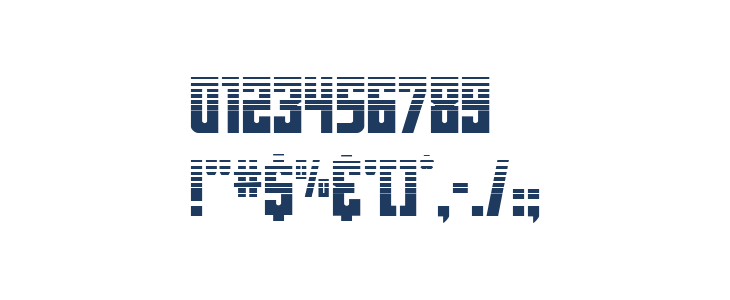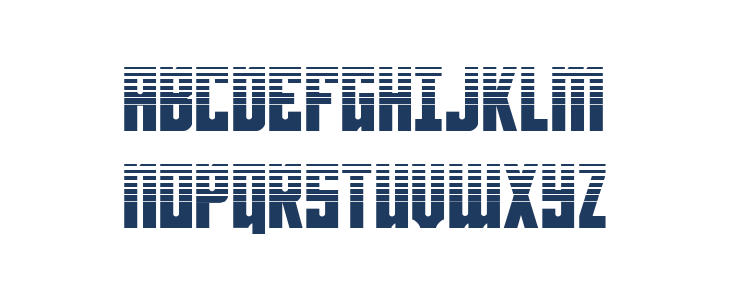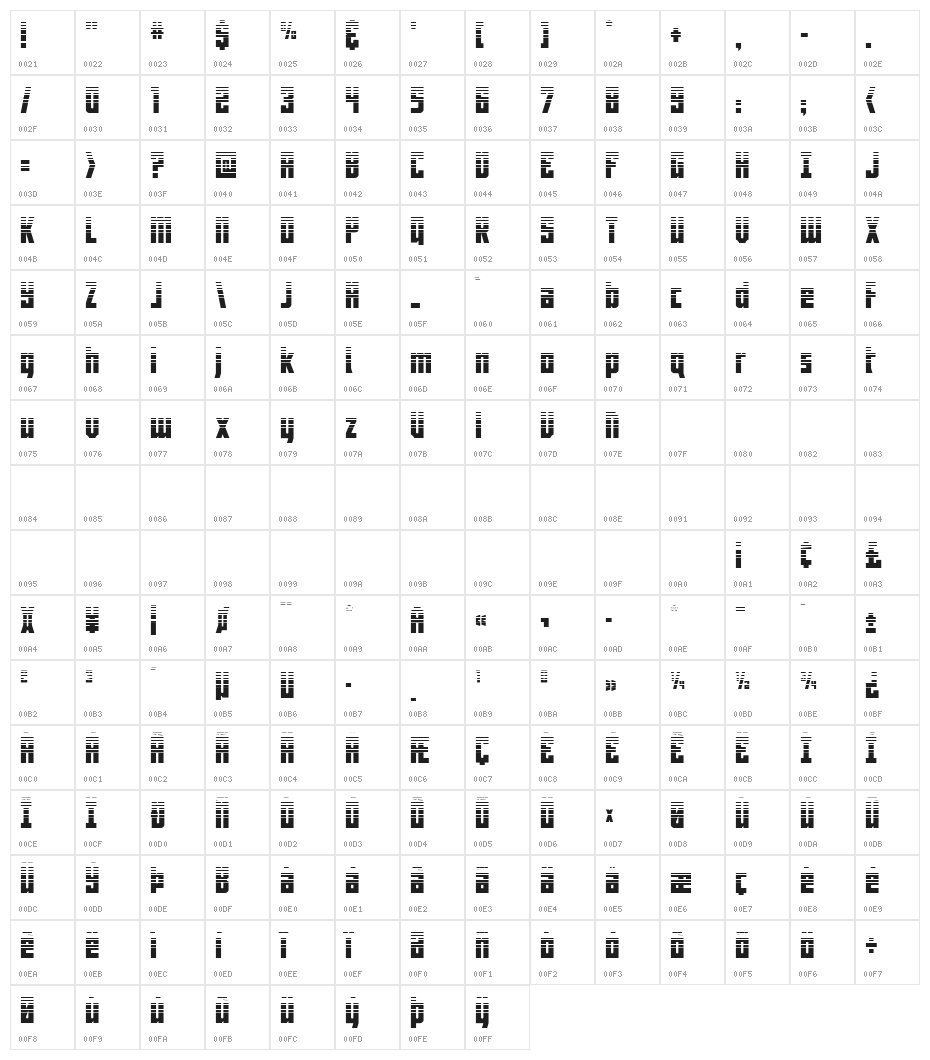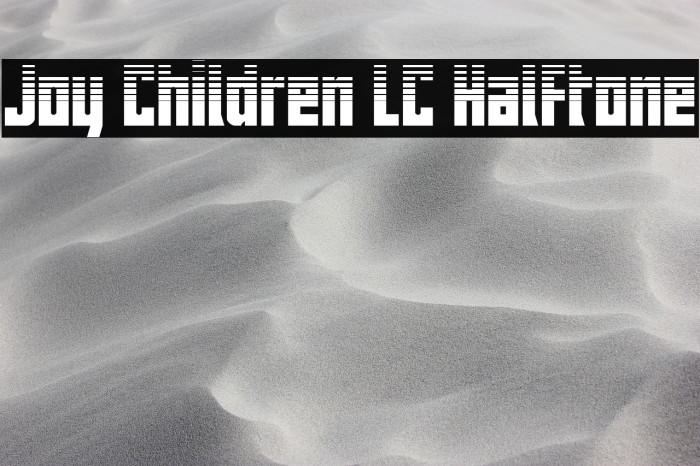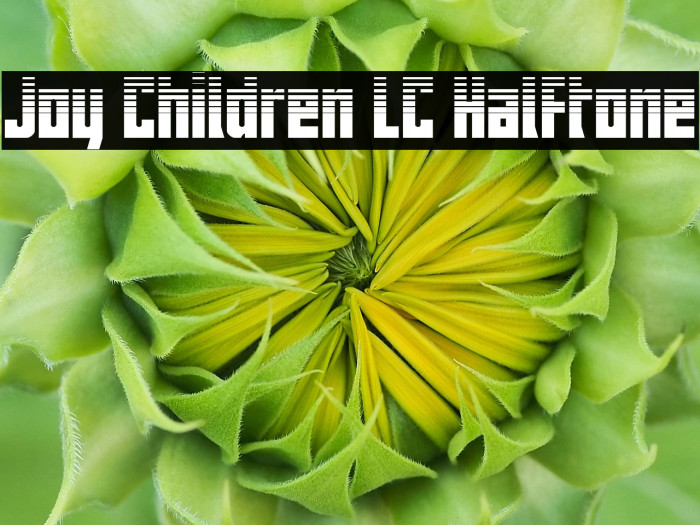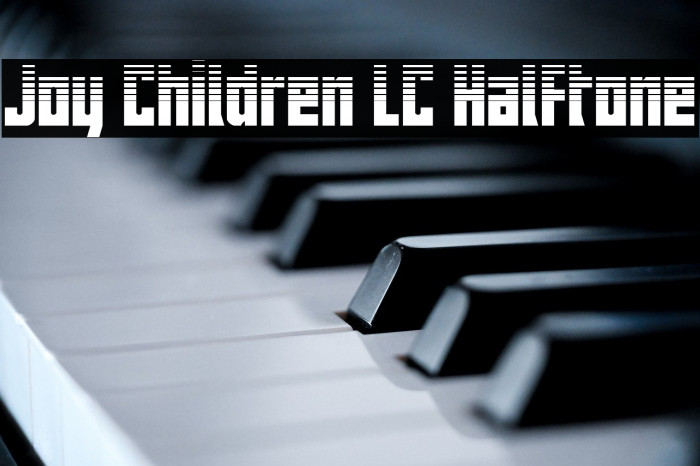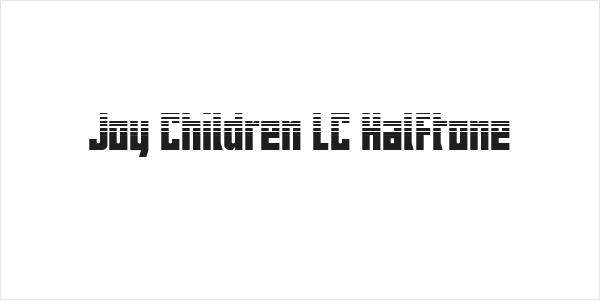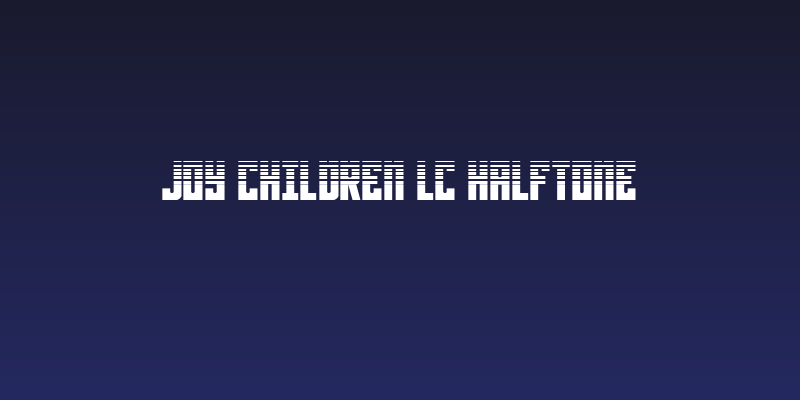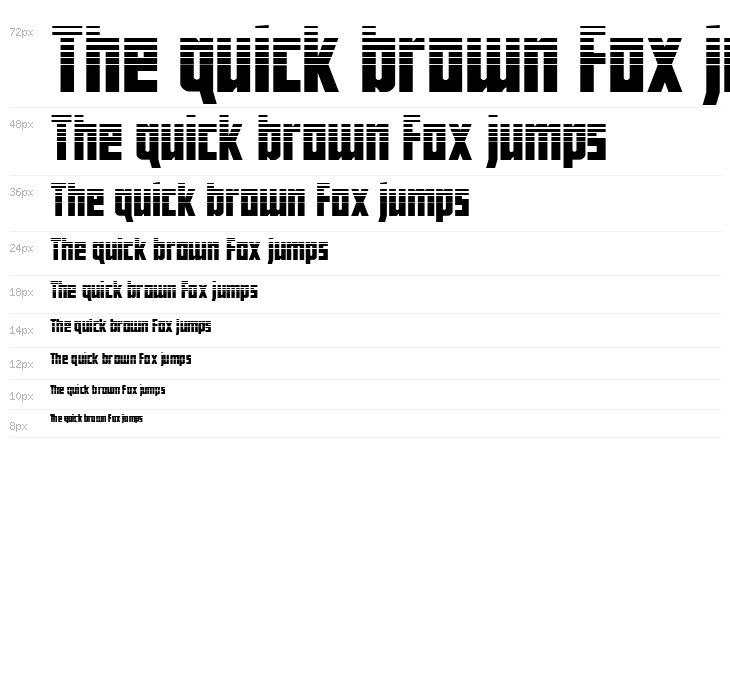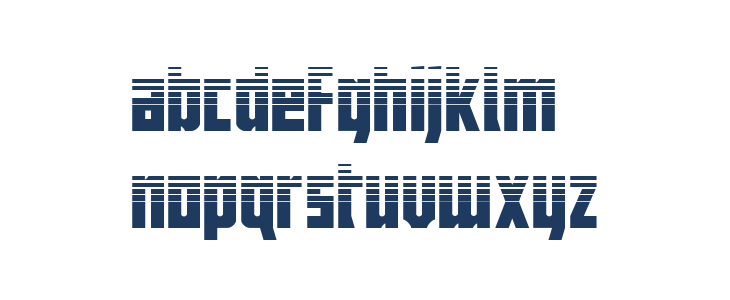
Joy Children LC Halftone Font
Joy Children LC Halftone Description
A geometric, block-style font with horizontal lines creating a striped effect across uppercase and lowercase letters, numbers, and symbols.
| Overall Style | Modern, Digital, Geometric |
| Use Case | Headlines, Logos, Posters, Digital interfaces |